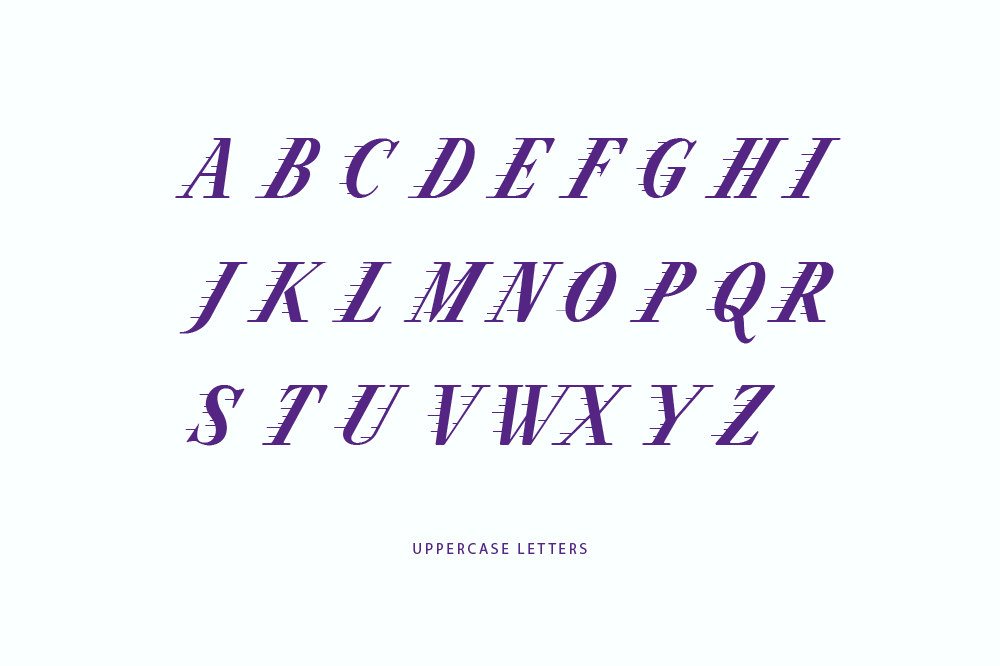
Lakers Jersey Number Font . Download free fonts inspired by the lakers style for personal use only. Download free alternative los angeles lakers font. The lakers logo features the lakers logotype as well as the text “los angeles” on a basketball. The actual font used for the logo is called bodoni by linotype and is available for purchase. The iconic los angeles lakers font, closely associated with one of the most successful and renowned teams in the nba, draws its inspiration. Learn about the lakers font used in their logo, jersey numbers, and player names. Los angeles lakers jersey number font. The los angeles lakers are the name of an american basketball team. I need font name for jersey number 34. The lettering for the lakers logotype resembles a font named bodoni italic created by. Feb 20, 2019 at 12:12. Download for free from the link below. This is not the official font and only resembles. Nba lakers refers to the font used in the lettering of los angeles lakers jersey. Try our text generator and create cool graphics for lakers font, then you can save the.
Los angeles lakers jersey number font. The lakers logo features the lakers logotype as well as the text “los angeles” on a basketball. The lettering for the lakers logotype resembles a font named bodoni italic created by. For a free version that looks just as good, you can try parmapetit by manfred klein, or nba lakers by eriq p. Download for free from the link below. The los angeles lakers are the name of an american basketball team. The actual font used for the logo is called bodoni by linotype and is available for purchase. Feb 20, 2019 at 12:12. Nba lakers refers to the font used in the lettering of los angeles lakers jersey. This is not the official font and only resembles.
Lakers Jersey Number Font The actual font used for the logo is called bodoni by linotype and is available for purchase. Try our text generator and create cool graphics for lakers font, then you can save the. Los angeles lakers jersey number font. Download free alternative los angeles lakers font. Nba lakers refers to the font used in the lettering of los angeles lakers jersey. I need font name for jersey number 34. Learn about the lakers font used in their logo, jersey numbers, and player names. This is not the official font and only resembles. For a free version that looks just as good, you can try parmapetit by manfred klein, or nba lakers by eriq p. Lakers font generator & download is available free at fontbolt. Feb 20, 2019 at 12:12. Download for free from the link below. Download free fonts inspired by the lakers style for personal use only. The los angeles lakers are the name of an american basketball team. The lettering for the lakers logotype resembles a font named bodoni italic created by. The iconic los angeles lakers font, closely associated with one of the most successful and renowned teams in the nba, draws its inspiration.
Los Angeles Lakers Jersey Font Lakers Jersey Number Font I need Lakers Jersey Number Font Download free alternative los angeles lakers font. I need font name for jersey number 34. The actual font used for the logo is called bodoni by linotype and is available for purchase. This is not the official font and only resembles. The lettering for the lakers logotype resembles a font named bodoni italic created by. Lakers font generator & download. Lakers Jersey Number Font.
How to draw LA Lakers logo (NBA Team) back jersey number style in Lakers Jersey Number Font Learn about the lakers font used in their logo, jersey numbers, and player names. Try our text generator and create cool graphics for lakers font, then you can save the. The lettering for the lakers logotype resembles a font named bodoni italic created by. Los angeles lakers jersey number font. I need font name for jersey number 34. The actual. Lakers Jersey Number Font.
Lakers Font » Fonts Max Lakers Jersey Number Font Los angeles lakers jersey number font. Download free alternative los angeles lakers font. Nba lakers refers to the font used in the lettering of los angeles lakers jersey. Download for free from the link below. Try our text generator and create cool graphics for lakers font, then you can save the. Feb 20, 2019 at 12:12. I need font name. Lakers Jersey Number Font.
Los Angeles Lakers Jersey Font Lakers Jersey Number Font I need Lakers Jersey Number Font The lettering for the lakers logotype resembles a font named bodoni italic created by. Download free fonts inspired by the lakers style for personal use only. Download for free from the link below. The iconic los angeles lakers font, closely associated with one of the most successful and renowned teams in the nba, draws its inspiration. For a free version. Lakers Jersey Number Font.
Lakers Jersey Name Font Lakers Jersey Number Font The actual font used for the logo is called bodoni by linotype and is available for purchase. I need font name for jersey number 34. Los angeles lakers jersey number font. Download free alternative los angeles lakers font. For a free version that looks just as good, you can try parmapetit by manfred klein, or nba lakers by eriq p.. Lakers Jersey Number Font.
NBA Lakers free Font What Font Is Lakers Jersey Number Font Download free fonts inspired by the lakers style for personal use only. The actual font used for the logo is called bodoni by linotype and is available for purchase. Try our text generator and create cool graphics for lakers font, then you can save the. Nba lakers refers to the font used in the lettering of los angeles lakers jersey.. Lakers Jersey Number Font.
Los Angeles Lakers Jersey Font Lakers Jersey Number Font I need Lakers Jersey Number Font Download free alternative los angeles lakers font. The los angeles lakers are the name of an american basketball team. Learn about the lakers font used in their logo, jersey numbers, and player names. For a free version that looks just as good, you can try parmapetit by manfred klein, or nba lakers by eriq p. The iconic los angeles lakers. Lakers Jersey Number Font.
Font Vector Lakers 2024 Digital Download AI, Eps, Svg, Pdf, Png, Otf Lakers Jersey Number Font I need font name for jersey number 34. The lettering for the lakers logotype resembles a font named bodoni italic created by. Download free fonts inspired by the lakers style for personal use only. The iconic los angeles lakers font, closely associated with one of the most successful and renowned teams in the nba, draws its inspiration. For a free. Lakers Jersey Number Font.
Lebron James Los Angeles Lakers Jersey Number Art Print 1 Mixed Media Lakers Jersey Number Font Download for free from the link below. Nba lakers refers to the font used in the lettering of los angeles lakers jersey. This is not the official font and only resembles. Lakers font generator & download is available free at fontbolt. The lettering for the lakers logotype resembles a font named bodoni italic created by. Download free alternative los angeles. Lakers Jersey Number Font.